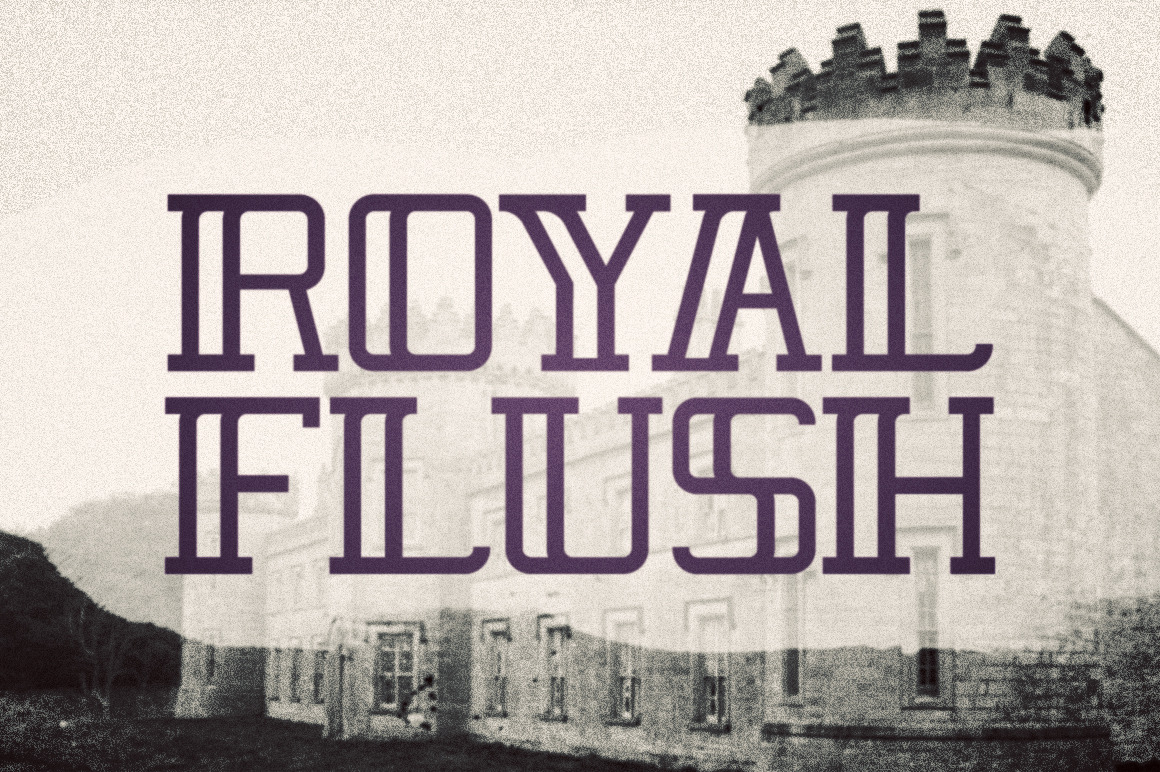
Royal Flush Typeface
Royal Flush is a display typeface family consisting of 4 different styles/weights. It was ultimately inspired by the art of playing cards, but can be used in a variety of ways! It only comes in uppercase, but several letters have alternates when used in lowercase. These alternates offer different takes on the serifs.